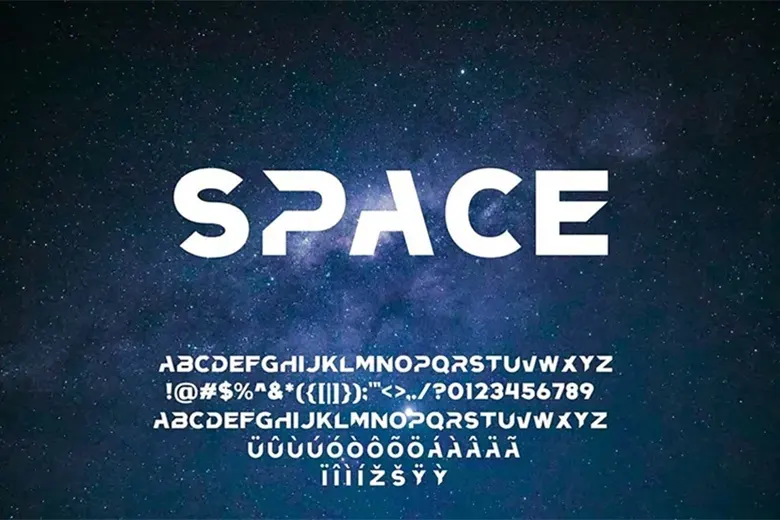
Frizon is a cool, sharp font that’s perfect for logos and branding. It has unique shapes in letters like R, A, H, and T, giving it a modern look. This font includes all uppercase letters, numbers, and symbols, so you can use it for many different projects.
Whether you’re designing for a website, a poster, or even a t-shirt, Frizon helps make your designs pop. It works for both personal and commercial projects, adding a bold touch to anything you create.